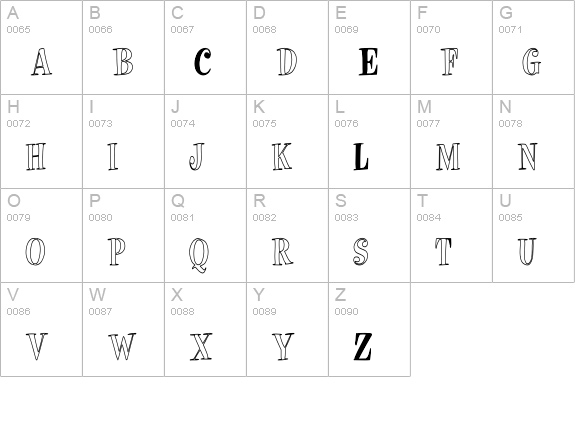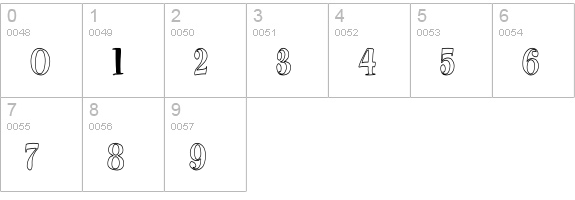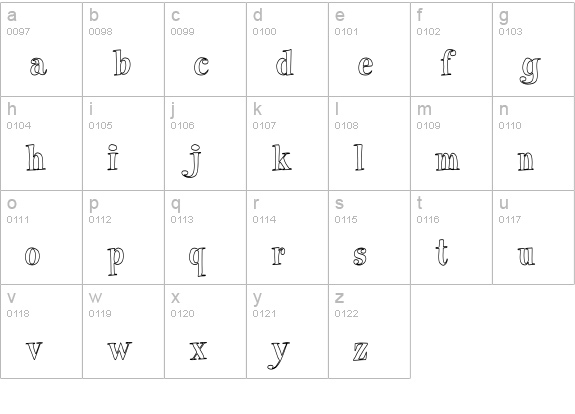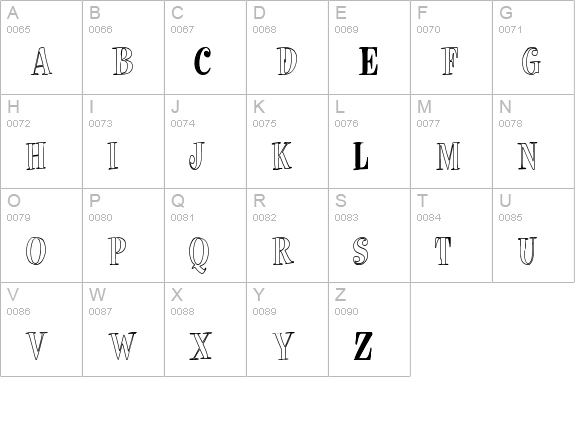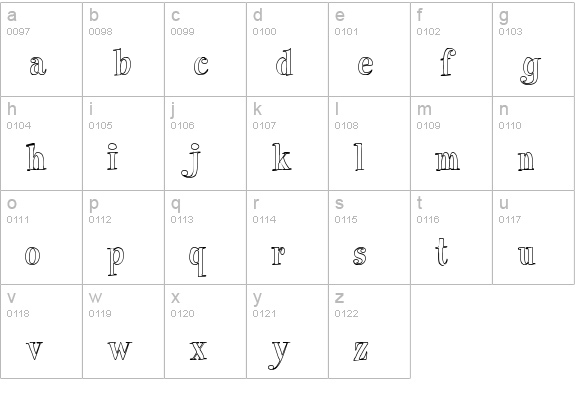
Introducing the captivating and enchanting Pixie-HC font! This whimsical typeface is sure to add a touch of magic to any project. With its delicate and intricate letterforms, Pixie-HC captures the essence of fairy tales and fantasy worlds. Designed with meticulous attention to detail, Pixie-HC features graceful curves and elegant flourishes that evoke a sense of playfulness and wonder. Each letter is meticulously crafted to create a harmonious balance between readability and artistic expression. But what truly sets Pixie-HC apart is its availability as a free download. That's right, this extraordinary font can be yours, completely free of charge! Simply visit FontsMarket.com and discover the joy of Pixie-HC for yourself. Whether you're designing a children's book, creating whimsical invitations, or adding a touch of magic to your branding, Pixie-HC is the perfect choice. Its versatility allows it to shine in a variety of applications, from digital to print, ensuring that your projects will stand out from the crowd. So, let your imagination run wild and embrace the enchantment of Pixie-HC. Download this captivating font today and let its magical charm bring your designs to life. Remember, it's freely available at FontsMarket.com, so don't miss out on this extraordinary opportunity to add a touch of magic to your creative endeavors.